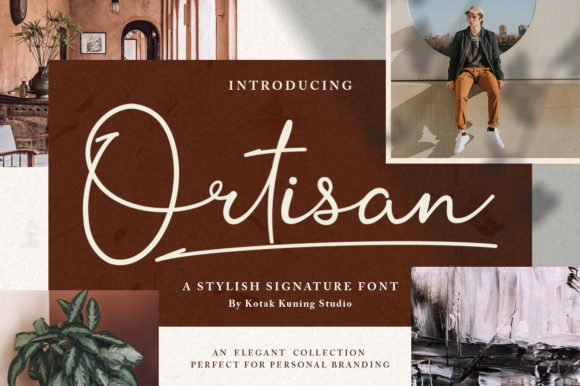
Welcome to the world of Ortisan, a light and breezy script font that will take your email signatures to new heights of elegance and sophistication. Let your emails stand out with a font that exudes personality and flair, leaving a lasting impression on recipients.
Crafted with care by Kotak Kuning Studio, Ortisan is the perfect embodiment of creativity and style. Its meticulously designed characters dance across the screen, inviting your readers to lose themselves in the beauty of authentic typography.
Ortisan is more than just a font; it's an expression of your unique personality and style. Whether you're a blogger, an entrepreneur, or simply someone who loves to add a touch of elegance to their digital communications, Ortisan is the perfect choice.
With its easy-to-read style and eye-catching charm, Ortisan is the perfect font for email signatures, logos, branding, and any other creative project where you want to make a lasting impression.
Imagine the impact your emails will have when they arrive with an elegant and stylish signature, instantly capturing the attention of recipients. Ortisan adds a touch of professionalism and polish that sets you apart from the crowd, making your messages unforgettable.